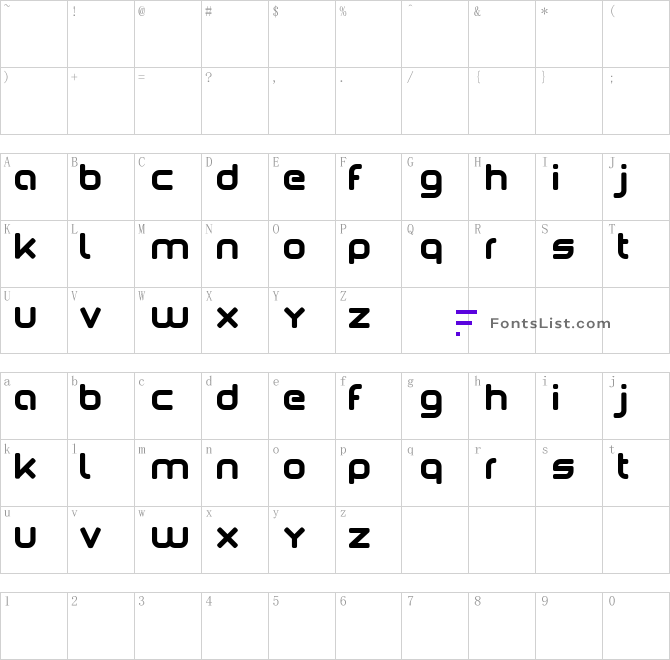
- Font Name:paola
abipti.ttf is a very beautiful artistic font, abipti.ttf is widely used in the design and printing of various books and pictures,abipti.ttf has a strong visual impact,abipti.ttf is a commonly used font in newspapers, magazines and books, and is used in posters, e-commerce Poster design, store design, logo design, font design and other fields.abipti.